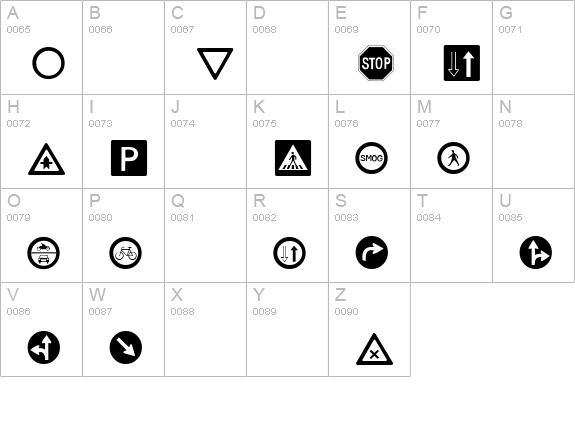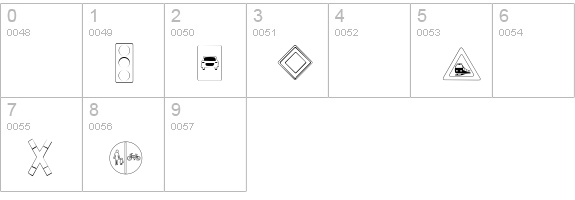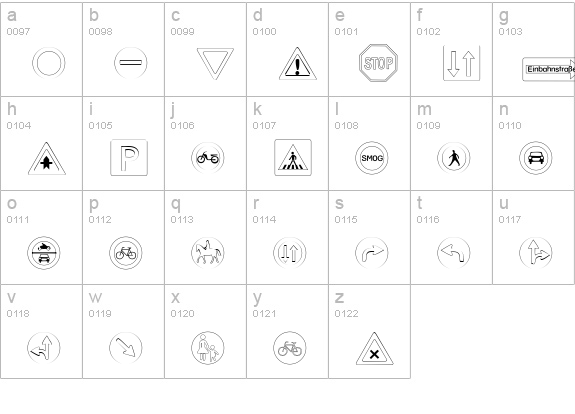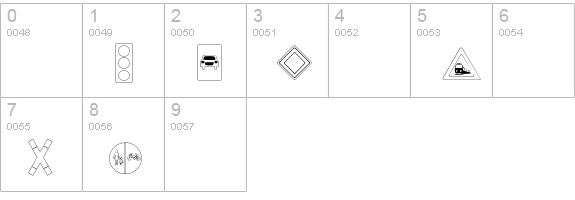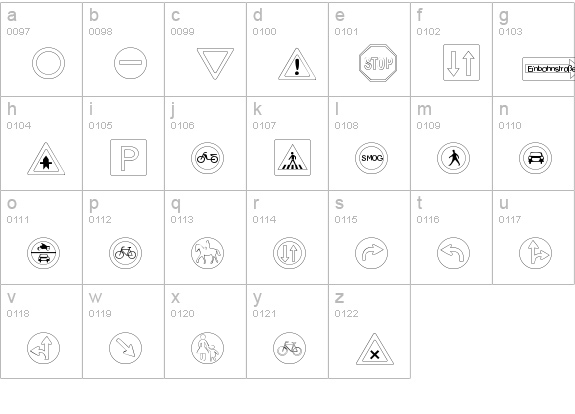
Traffic Font Details
Introducing Traffic font, a versatile typeface designed to captivate and enhance any visual project. With its sleek and modern appearance, Traffic font effortlessly combines elegance and innovation, making it the perfect choice for a wide range of design applications. Featuring a striking blend of contemporary and geometric elements, Traffic font exudes a sense of dynamic movement and sophistication. Its clean lines and balanced proportions create a harmonious visual experience, ensuring legibility and visual impact across various mediums. This exceptional font family offers a vast array of weights and styles, providing endless possibilities for creative expression. Whether you're designing a logo, crafting a headline, or creating a unique brand identity, Traffic font offers the versatility and flexibility to bring your vision to life. But what truly sets Traffic font apart is its accessibility. This remarkable typeface is available for free download exclusively at FontsMarket.com. Yes, you read that right – Traffic font can be yours without spending a dime. Now, you can elevate your designs without breaking the bank, thanks to this generous offer. So, why wait? Unleash your creativity and explore the endless possibilities of Traffic font. Download it now, and experience the seamless integration of style and substance. Whether you're a seasoned designer or just starting your creative journey, Traffic font is the perfect companion to elevate your work to new heights. Get it today at FontsMarket.com and embark on a typographic adventure like no other.